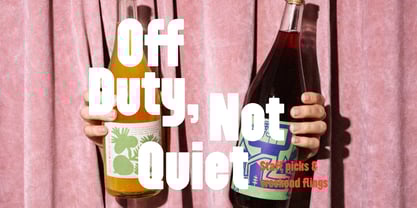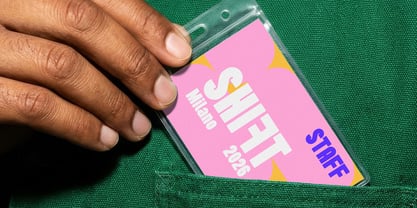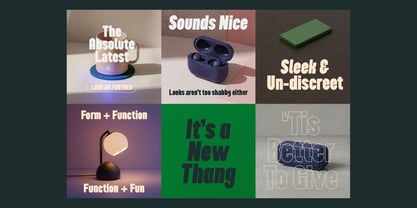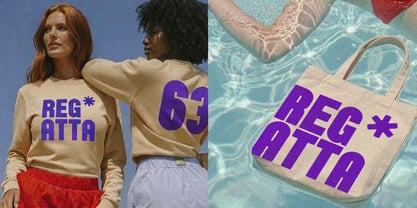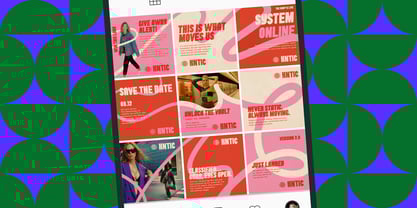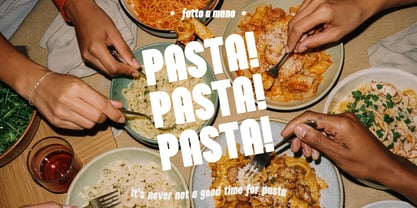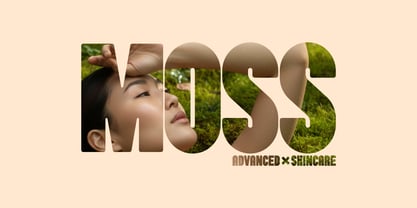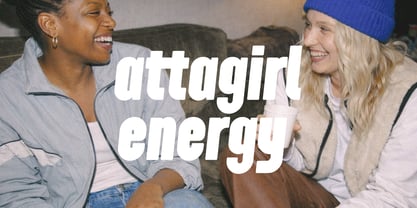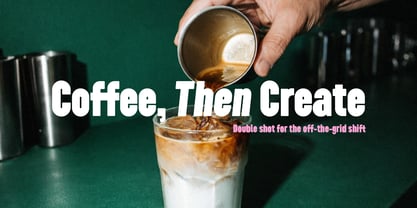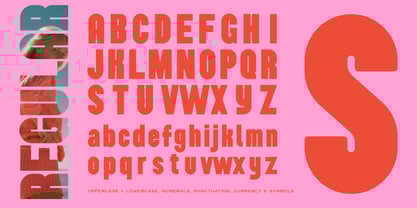
EB Attagirl
by Elyas Beria
The EB Attagirl Font Family was designed by Elyas Beria and published by Elyas Beria. EB Attagirl contains 2 styles and family package options.
EB Attagirl is a condensed, ultra-bold sans with rounded corners and tight proportions. It’s built strictly for display sizes—when you need maximum volume in minimal space. Where it works: Posters, headlines, merch, packaging, sports numbers, event graphics, social promos, bold branding, wayfinding. Key features: • Category: Display Sans, Condensed/Compressed, Black weight, • Two styles: Regular + Italic, • Uppercase & lowercase, • Figures: Lining numerals (0–9), • Punctuation & symbols: Full basic set + currency ($ € £ ¥ ¢) + math (× ÷), • Standard ligatures ff, tt; prebuilt fractions ¼ ½ ¾ ⅓, • Language support: Western & Central European Latin, • Style notes: • Low contrast, solid fills, soft corners for a friendly but industrial voice, • Designed to track tight without choking counters, • Works great over imagery and color blocks
About Elyas Beria
Elyas Beria is an independent, one-person type foundry built on years of branding and brand development experience. The studio creates original typefaces designed to solve real identity and communication needs—fonts Elyas wanted to use but couldn’t find. Each release is drawn and produced with professional brand applications in mind, balancing distinct personality with clarity, strong spacing, and reliable performance across print, packaging, and digital systems.